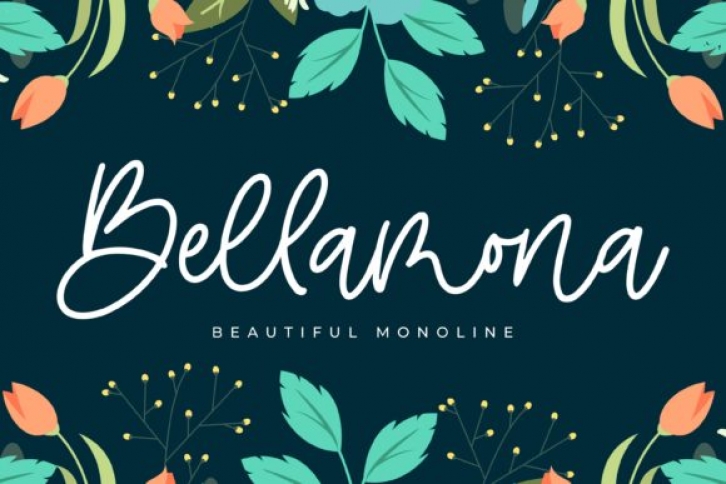
Bellamona is a beautiful monoline, handwritten font that is stunning for any creative design. It is perfect for any design project as invitations, logo, book cover, craft, or any design purposes. This font is PUA encoded which means you can access all of the magical glyphs and swashes with ease!